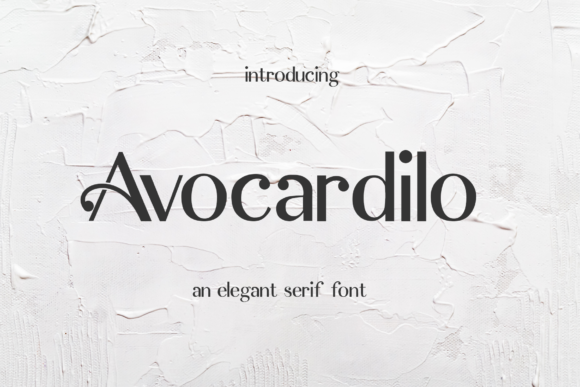
Introducing Avocardilo, the Bold, Modern, and Uniquely Groovy Display Font
In a digital age brimming with visual clamor, it takes something extraordinary to cut through the noise and capture attention. Avocardilo, the brainchild of the brilliant MualanaDesign, is not just a font—it's a captivating symphony of strokes, curves, and grooves that will elevate your designs to new heights.
With its modern and bold personality, Avocardilo is not for the faint of heart. It's a font that demands attention, a visual tour de force that will make your words leap off the page and dance before your eyes. Whether you're crafting logos, signatures, quotes, badges, labels, packaging designs, or blog headlines, Avocardilo is the perfect muse to unleash your creativity.
Dive into the Depths of Avocardilo's Enchanting Groove
The defining characteristic of Avocardilo lies in its unique groove, a subtle yet striking element that infuses your designs with a touch of playfulness and energy. Imagine your words flowing effortlessly along these grooves, each letter a vibrant note in a visual symphony.
The groove is not just an aesthetic flourish; it's a functional marvel that adds depth and dimension to your designs. It's like a hidden layer of storytelling, inviting your audience to explore the intricacies of your message.
Unleash Your Creative Genius with Avocardilo's Signature Style
Avocardilo's signature style is an open invitation to let your creativity run wild. It's a font that thrives on experimentation, encouraging you to push the boundaries of design and create something truly unique.
The easy signature style of Avocardilo makes it a perfect fit for a wide range of projects. Envision your logos adorned with a bold and confident stroke, your signatures carrying an air of authority, your quotes radiating wisdom and inspiration.
With Avocardilo, you'll find yourself reaching for new heights of creativity, discovering hidden talents and untapped potential.